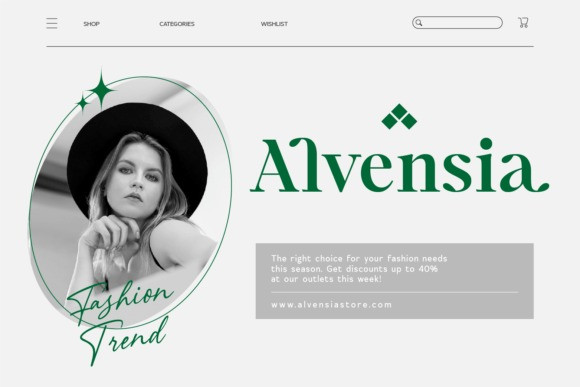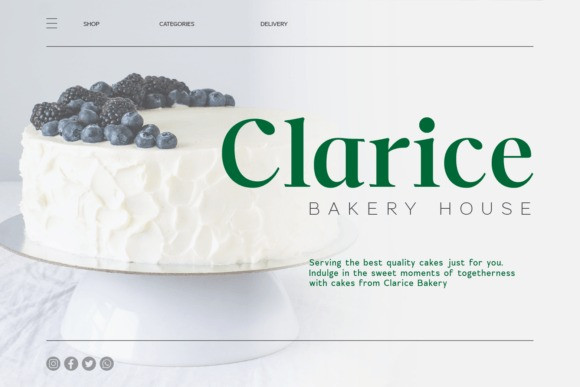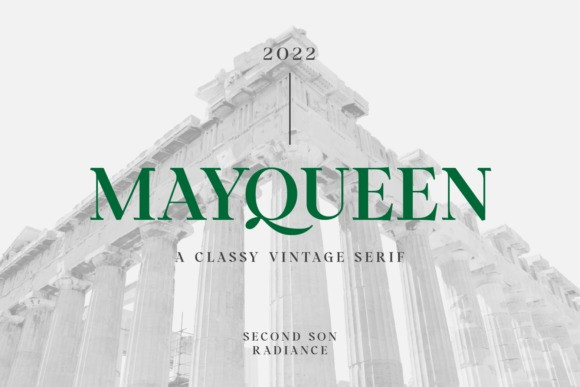
Mayqueen Font
Mayqueen Serif Font is a classy and vintage serif font with a touch of elegance and charm.​​​​​​​ It is perfect for your upcoming projects such as luxury logo and branding, classy editorial designs, woman’s magazines, cosmetic brands, art gallery branding, museums, boutique branding, stationery design, blog design, modern advertising designs, card invitations, art quotes, home decor, book/cover titles, special events, and more.